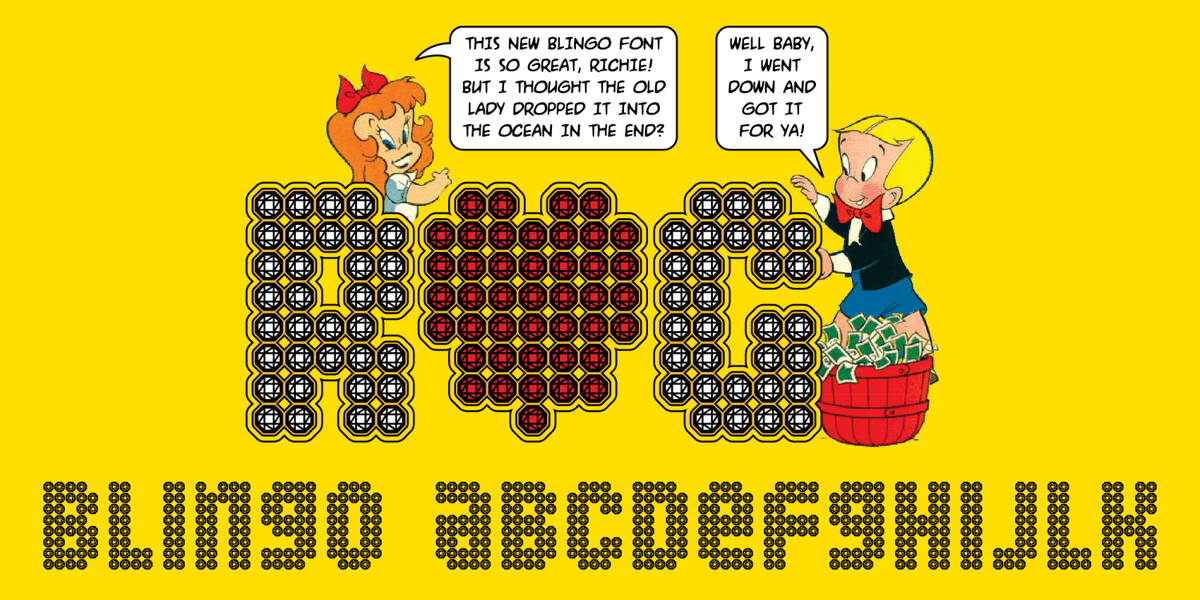
There's a reason some things are free in this world...because they are cheaply made. Well, today is your lucky day, my friend. Not only is this font made out of pure diamonds, but it's absolutely free to download! Time to make that "Sorry I broke off our engagement the day of the wedding" card.